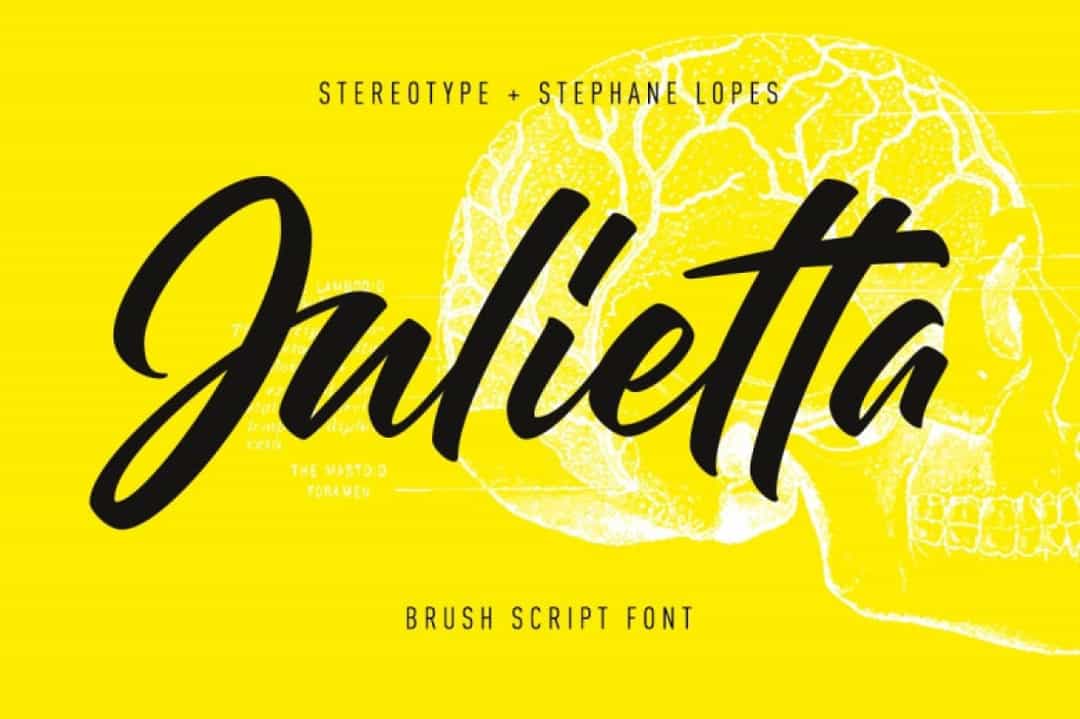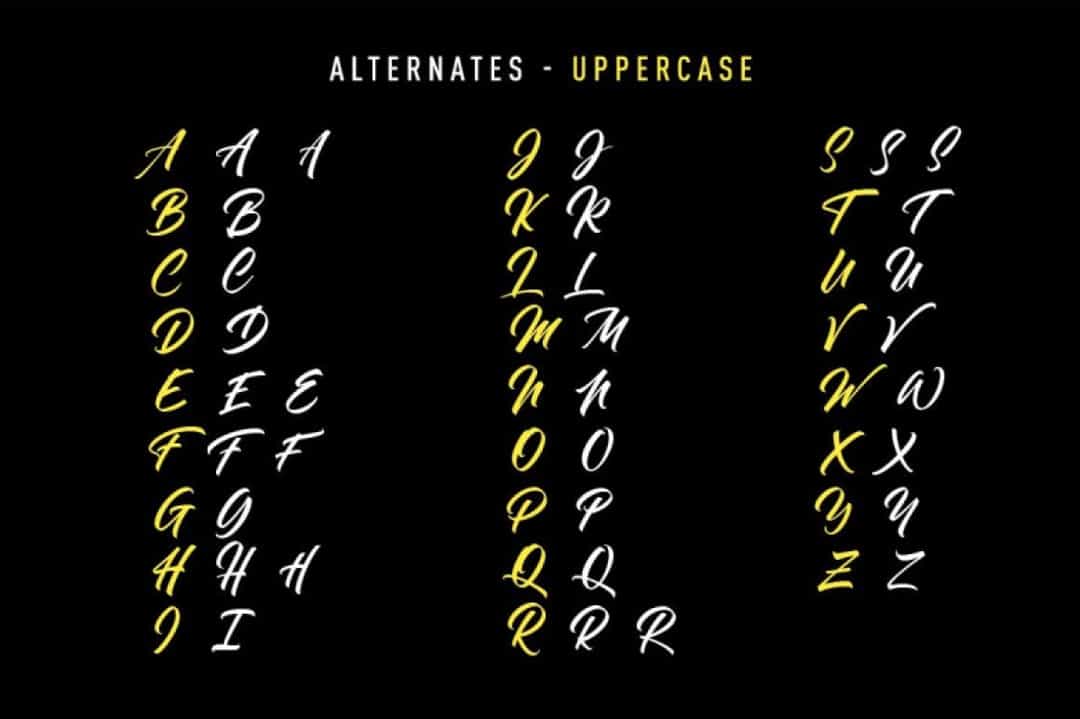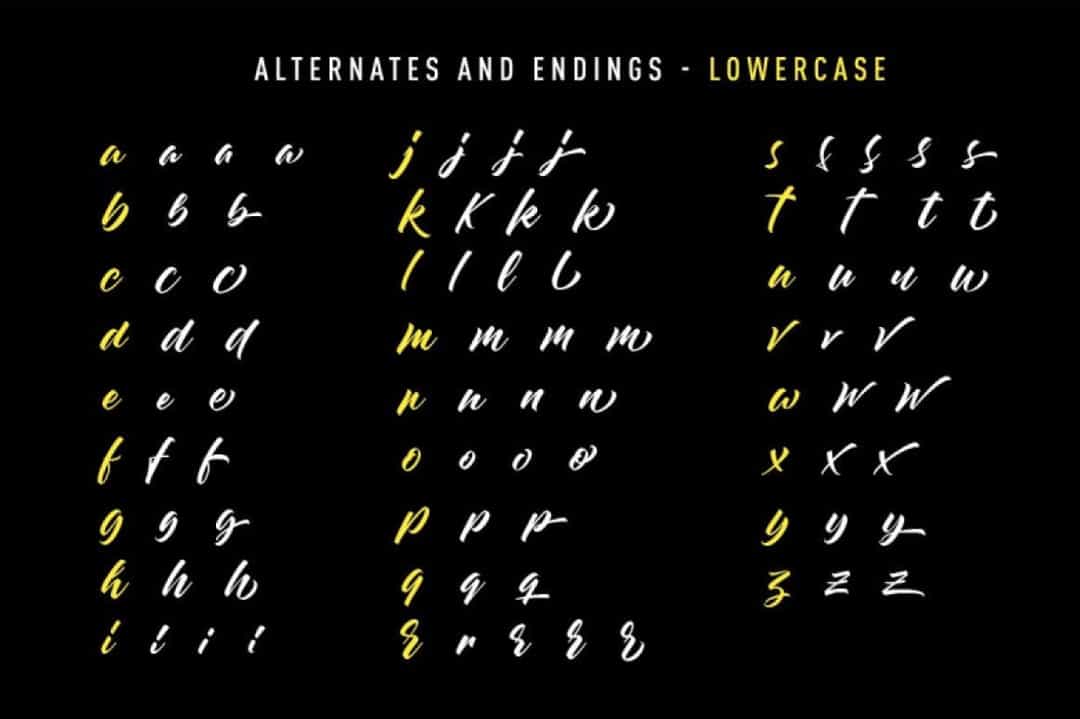
Discover Julietta Script Font Free, part of the Brush collection—a versatile and unique font perfect for adding a personal touch to your projects. Download it for free and enjoy crafting designs with style, from invitations to social media posts. This font is available exclusively for personal use, giving you the freedom to create without limits. Unlock your creativity with Julietta Script Font Free today!
Introduce Julietta Script Font! Julietta Font is a script font created and from StereoType and is one that is fun to use, inspired by the artistry of lettering from Stephane Lopes. More to the interest of the commercial version, over 70 ligatures and contextual ligatures, as well as underlining are available for the letters.